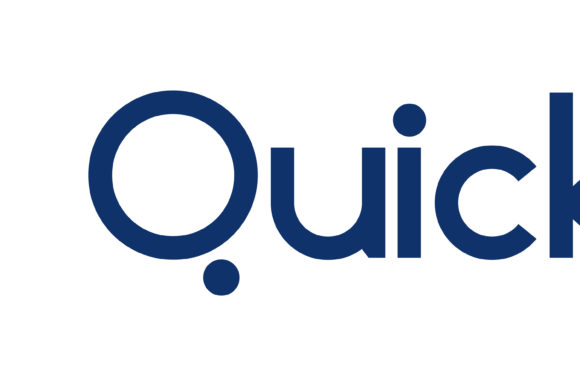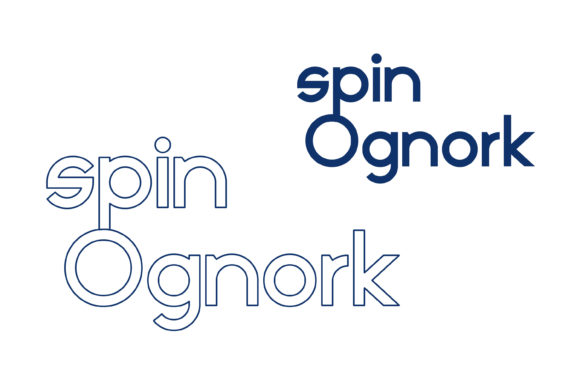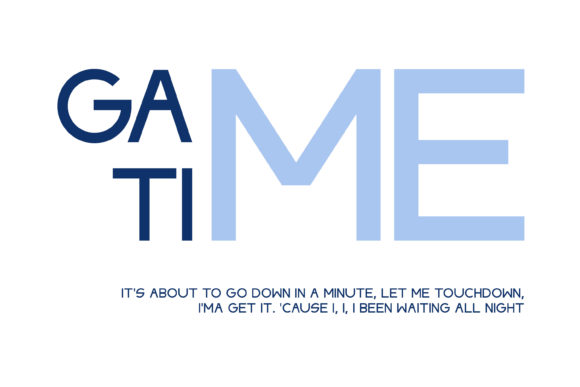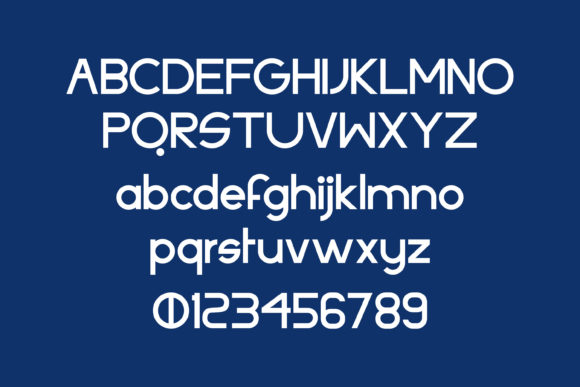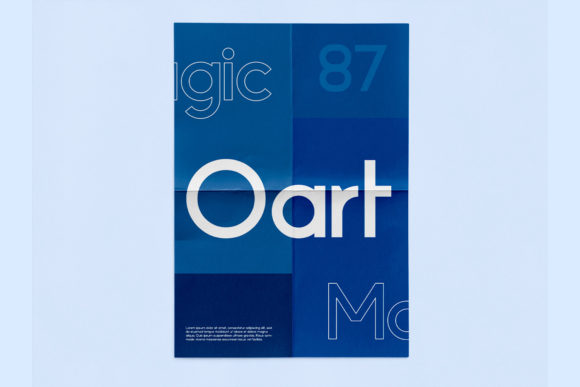
Introduction to Quicke Font
Have you ever been working on a creative project, pouring your heart and soul into it, only to realize that the right font is missing to bring it all together? This is a moment that many designers can relate to. For those seeking a modern and sleek solution, the Quicke Font is here to save the day.
As a valuable design resource, Quicke Font is perfect for adding a neat and sleek accent to your beautiful crafty ideas. With its unique and modern sans serif design, it’s ideal for headlines, big text, branding, logotypes, and display usage. Whether you’re working on a high-quality creative project or simply need a font to elevate your design, Quicke Font is sure to deliver.
Key Features of Quicke Font
- Unique and modern design, perfect for adding a touch of sophistication to any creative project.
Honest Review: Quicke Font
I recently stumbled upon Quicke Font, a new design resource that caught my attention. As a designer, I’m always on the lookout for high-quality fonts to elevate my creative projects. In this review, I’ll share my honest thoughts on what works well and what doesn’t.
- Unique Style: Quicke Font offers a distinctive style that sets it apart from other fonts. Its clean lines and modern feel make it perfect for contemporary designs.
- Limited Character Set: The font’s character set is limited, which may not be suitable for complex designs or multi-language projects.
- Not Ideal for Small Text: Due to its modern design, Quicke Font may not be the best choice for small text sizes, as it can become difficult to read.
Overall, Quicke Font is a solid addition to any designer’s toolkit. Its unique style and free download make it an excellent choice for creative projects. However, its limitations should be considered when choosing this font for complex designs or small text sizes.
Tips for Getting the Most Out of Quicke Font
To get the most out of the Quicke Font, use it in combination with high-quality images and design elements. Experiment with different font sizes, colors, and styles to create a unique and creative design. You can also use the font in conjunction with a transparent background to add depth and visual interest to your design.
Common Use Cases for Quicke Font
The Quicke Font is a versatile design resource that can be used in a variety of creative projects, including logos, branding materials, and marketing collateral. It’s also suitable for use in presentations, reports, and other business documents. With its high-quality design and